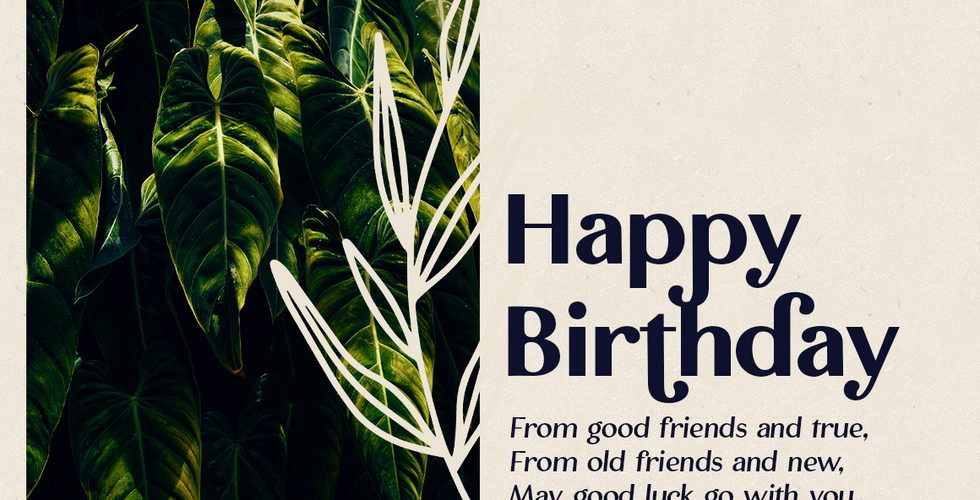
Let me introduce you to my new display font, The Voyager! The Voyager is a sans serif display font with a retro look. With over 100 ligatures, small caps, and swashes, The Voyager is perfect for logotype design, magazine layouts, in titles and short texts.
The Voyager includes:
Three weights: Light, Regular and Bold & Italics
100+ ligatures for both the lowercase characters and the caps
Small caps
Swashes
A set of frames
Use The Voyager in social media posts, lettering designs, and logotypes.
The Voyager pairs well with a casual handwritten font, such as Notes And Quotes Script or Smoke Signals. You can get it now at a special price!